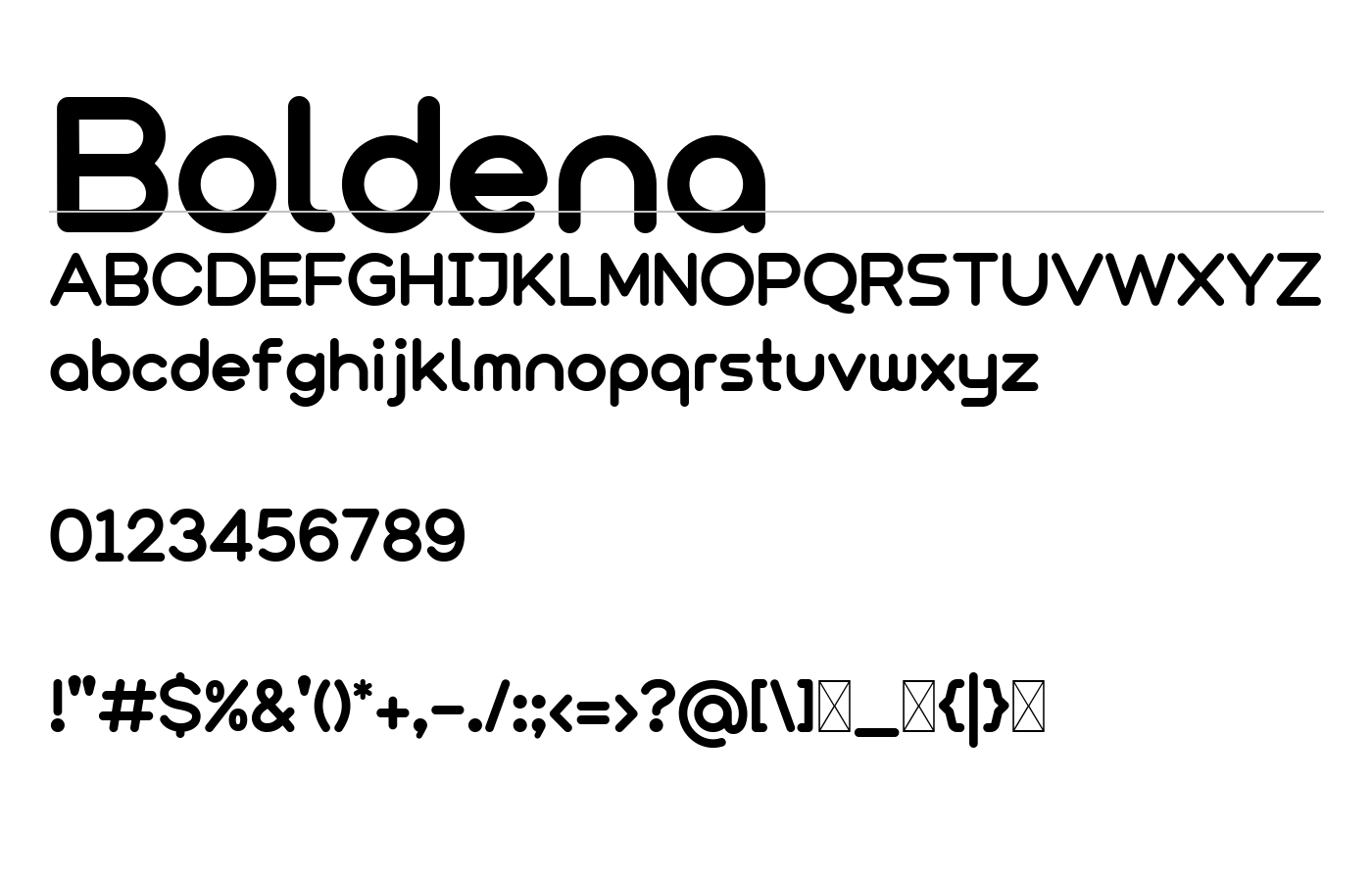
Boldena is a modern sans serif font with a rounded, geometric design that feels friendly and approachable. Its medium weight, consistent stroke width, and clear letterforms make it highly readable, while the distinctive shapes of characters like the single-story "a" and open "g" add a unique personality. This versatile font works well for branding, headlines, and digital use where a clean, contemporary, and inviting style is desired.
Boldena Font
About Boldena Font